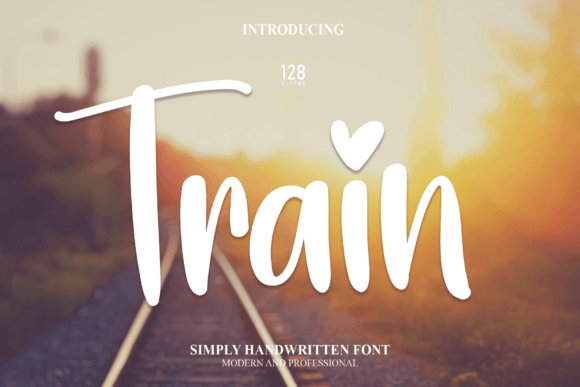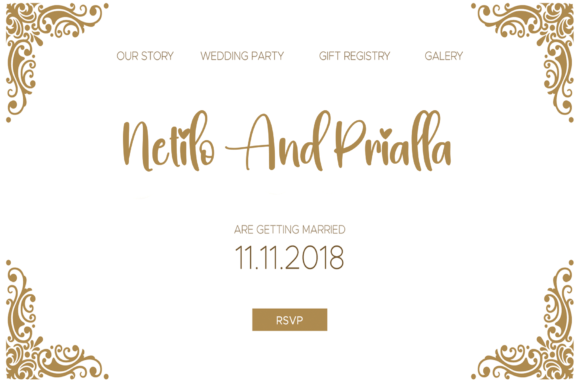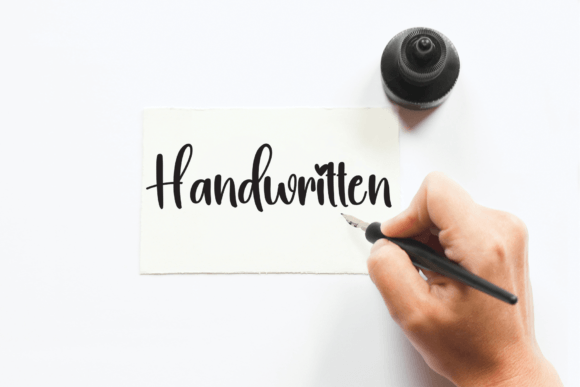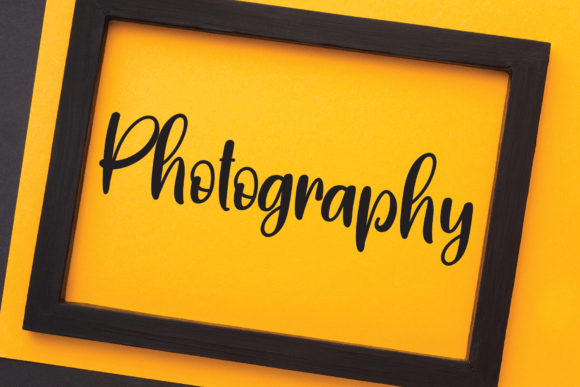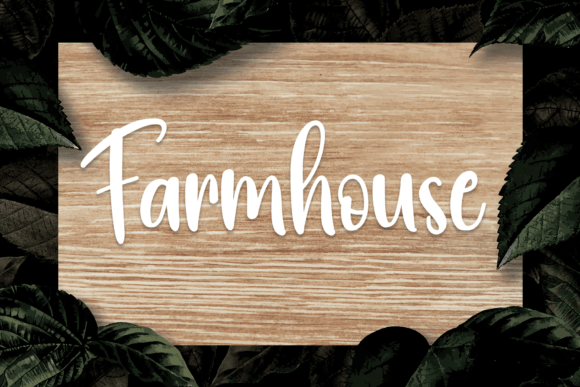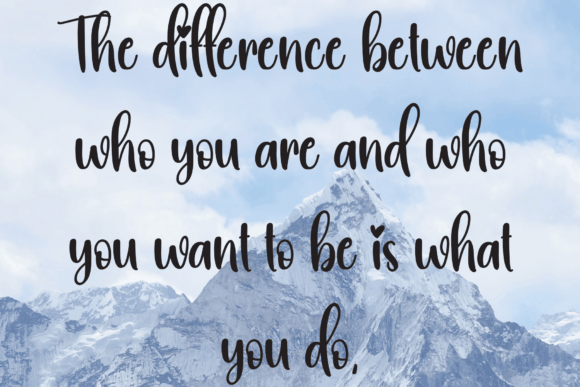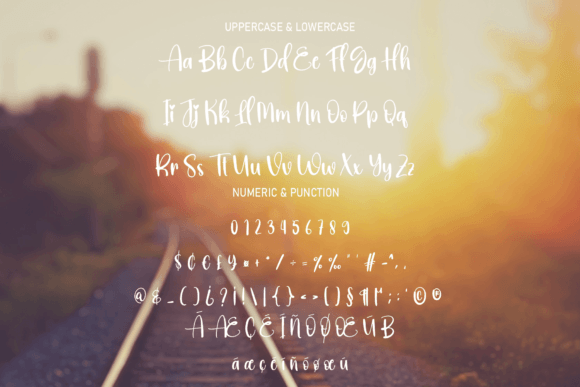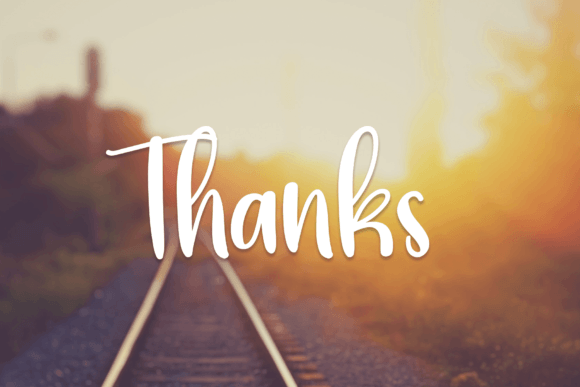
Train Font
About Train Font
“Train” is a sweet and cursive handwritten signature script font that adds a gentle and romantic touch to your design projects. Its elegant yet casual appearance makes it suitable for a variety of creative ideas, adding a joyful and romantic vibe to each of your endeavors.
This charming font is particularly well-suited for branding, logos, wedding-related designs, greeting cards, fashion-related projects, lookbooks, and marketing promotions. Its graceful and flowing characters create a sense of elegance, making it perfect for occasions where you want to convey a fancy and refined aesthetic while maintaining a casual and approachable feel.
“Train” is versatile and can be applied to numerous design contexts, enhancing the visual appeal of your projects. Whether you’re working on wedding invitations, fashion branding, or promotional materials, this font adds a touch of sophistication and romance, making your designs stand out.
By incorporating “Train” into your projects, you’re infusing them with a delightful and romantic atmosphere. Its cursive and handwritten style conveys a sense of personal touch and creativity, making your designs look both elegant and approachable. Whether you’re a graphic designer, a wedding planner, or an individual creating personal projects, “Train” offers you a beautiful and versatile font choice to add a touch of romance and sophistication to your creations.